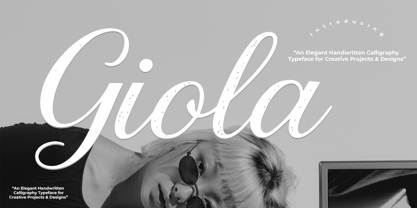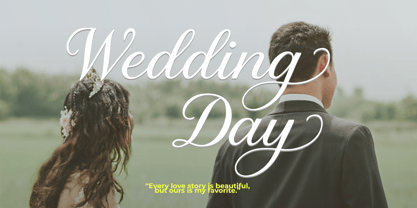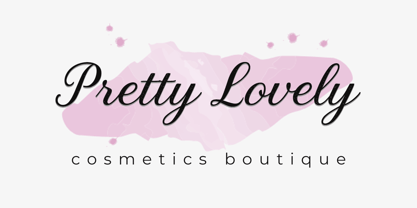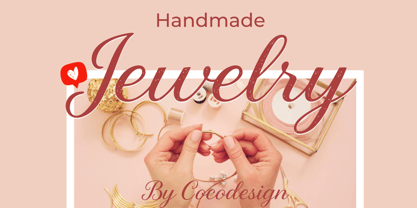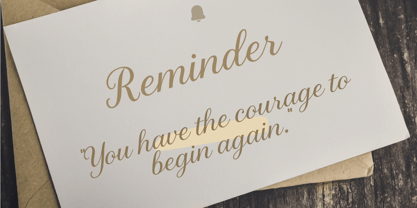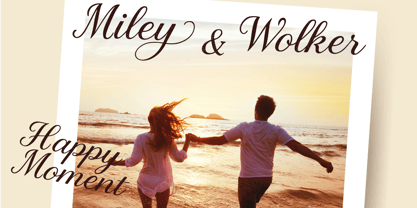
Giola
by Cocodesign
The Giola Font Family was designed by Muhammad Zaini and published by Cocodesign. Giola contains 1 styles. More about this family
Giola – Elegant Handwriting Calligraphy Font Giola is an elegant and modern handwriting calligraphy font, designed to bring a sophisticated touch to your creative projects. Its smooth curves and stylish flow make it perfect for wedding invitations, greeting cards, branding, logos, packaging, quotes, and social media designs. Thank you and welcome....
Designers: Muhammad Zaini
Foundry: Cocodesign